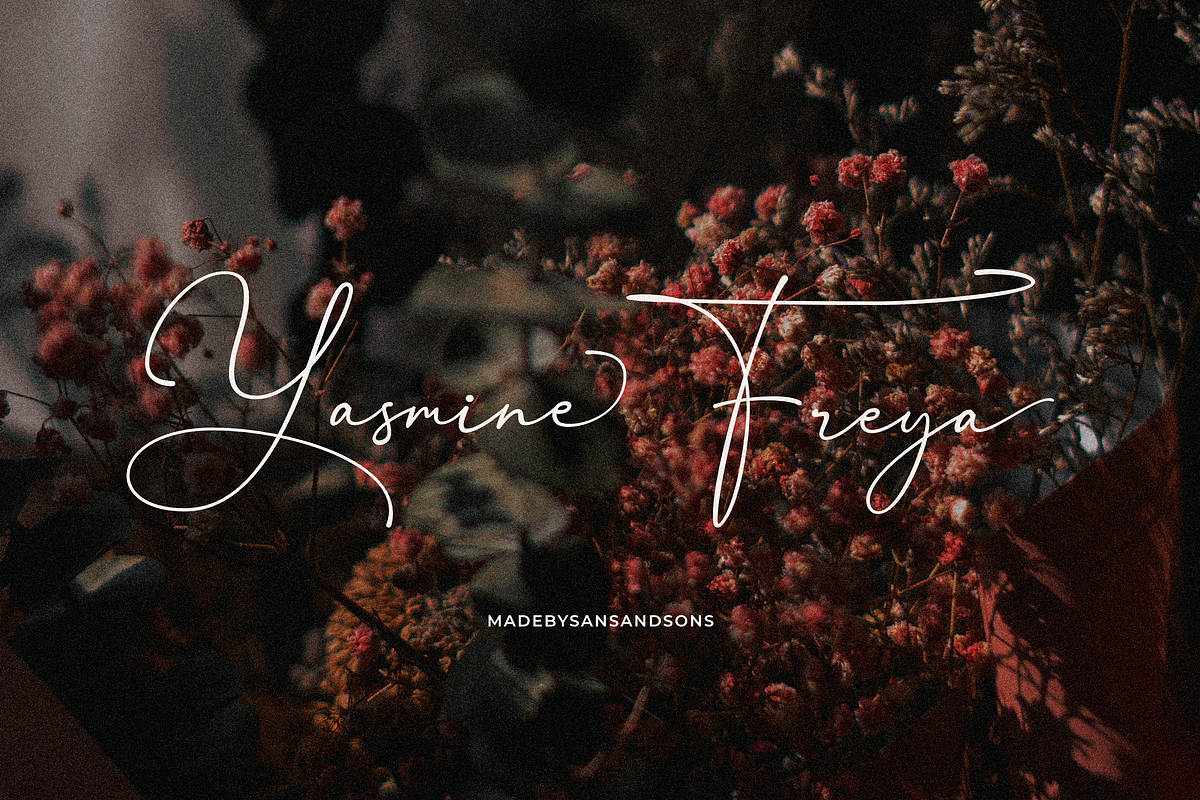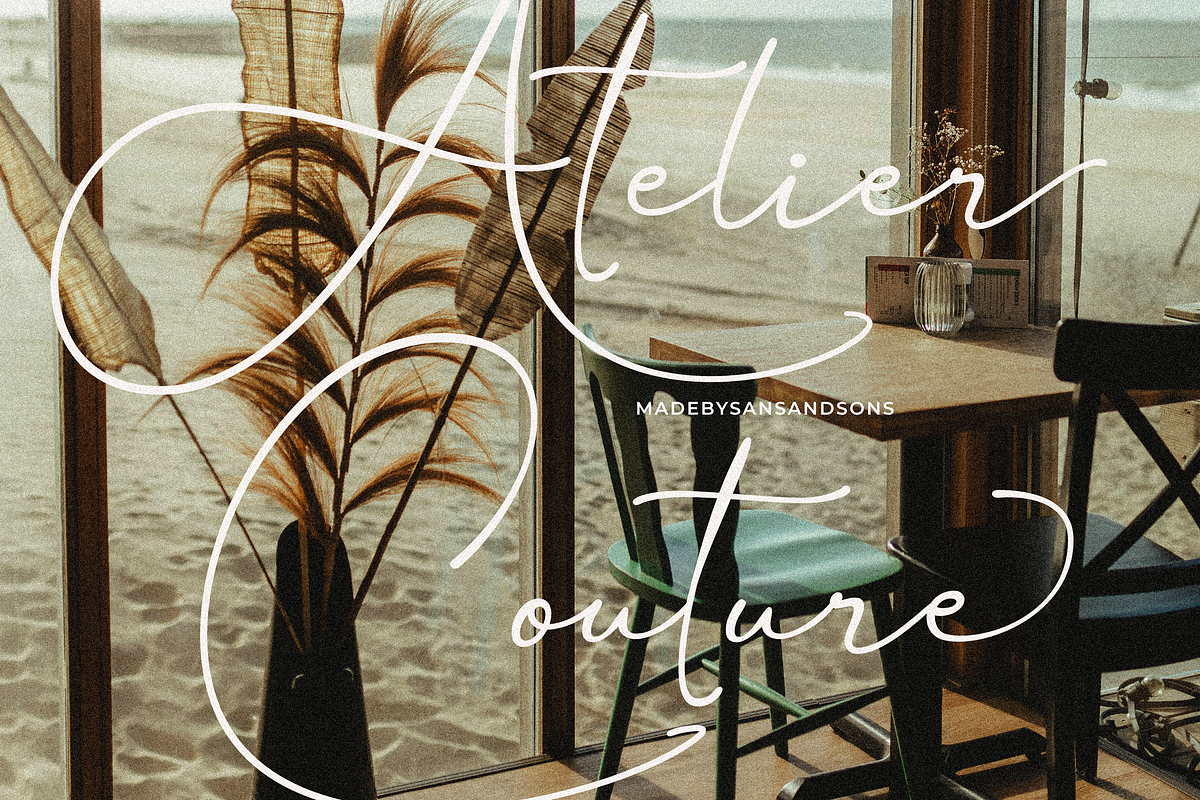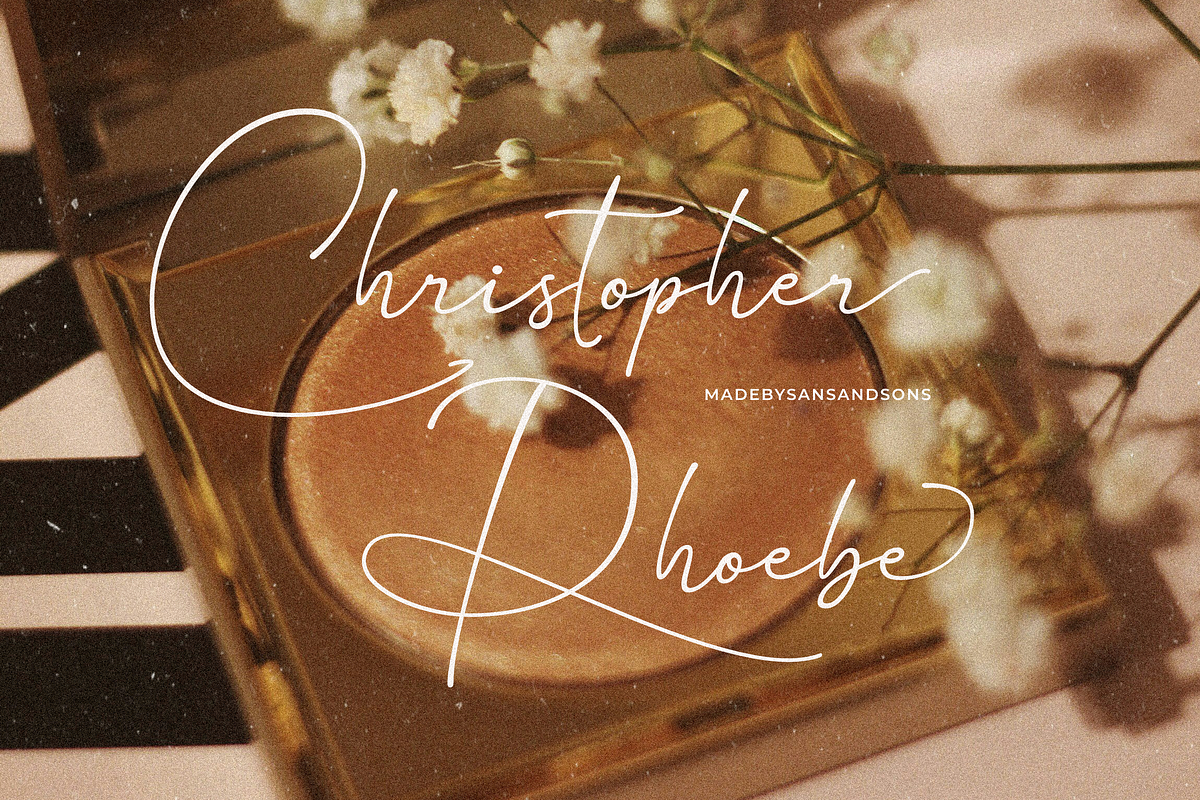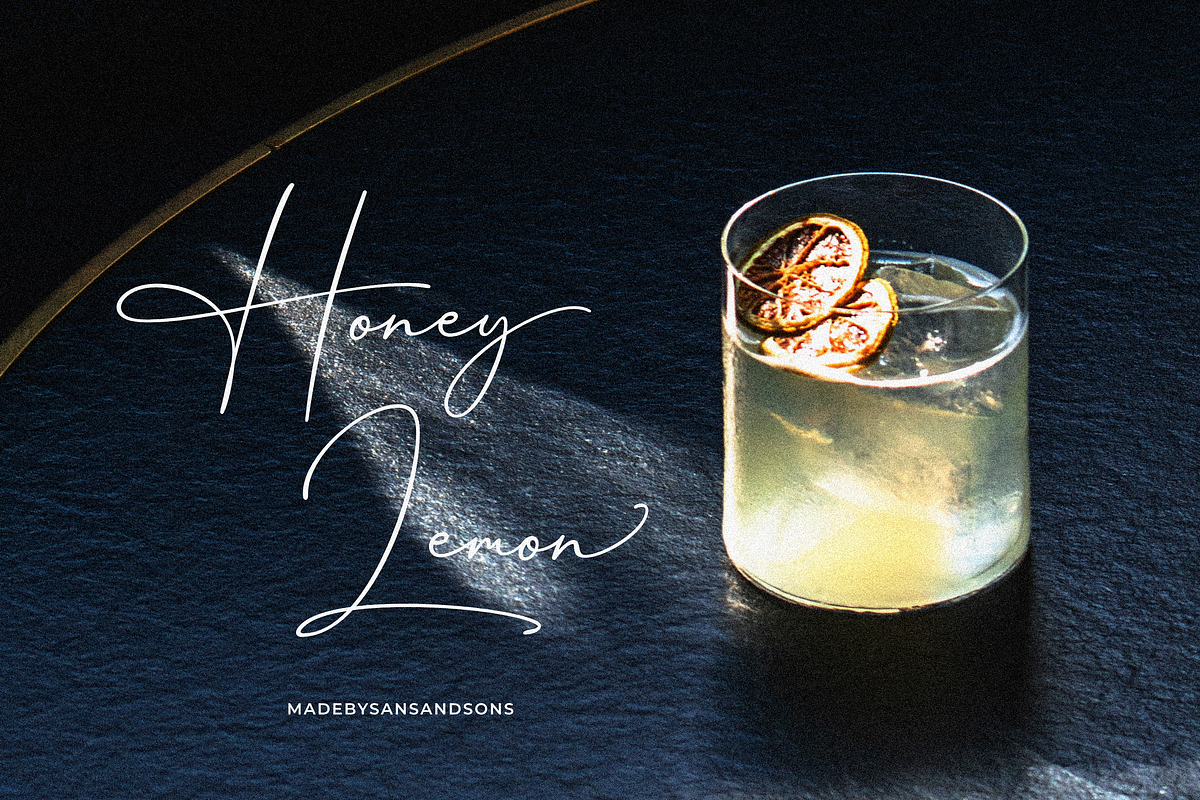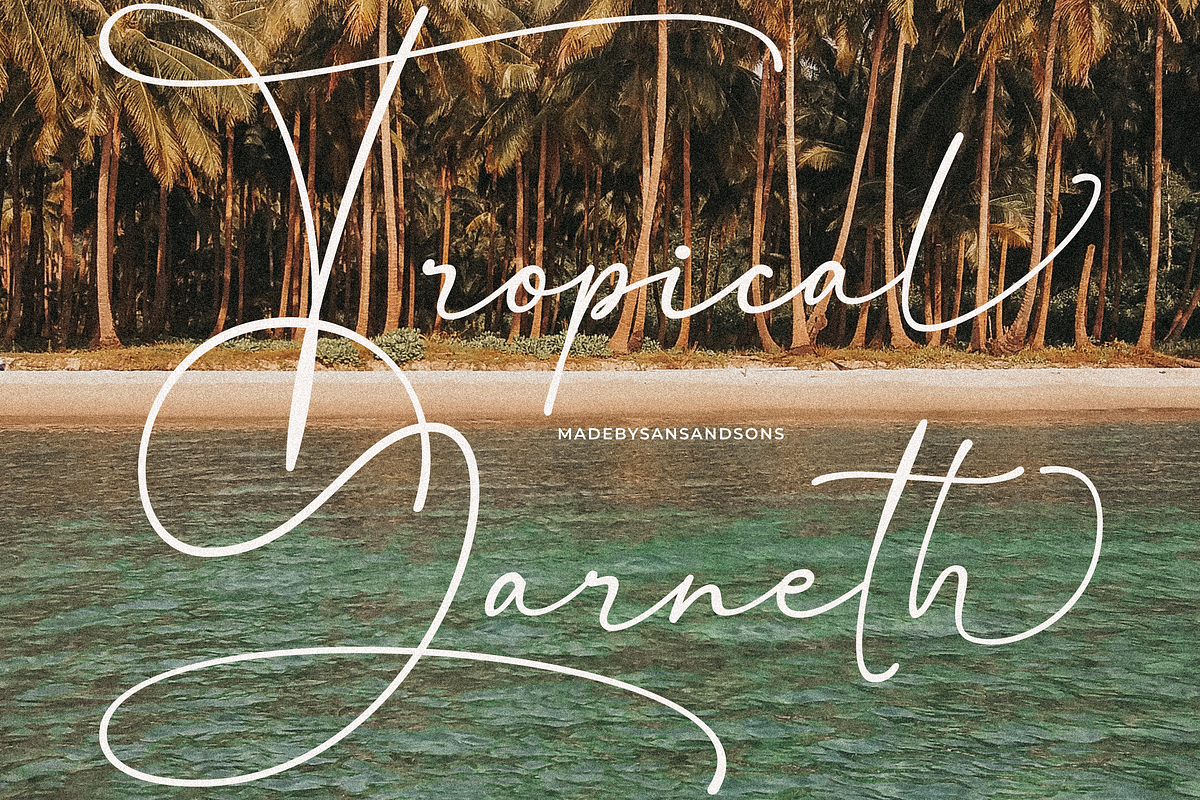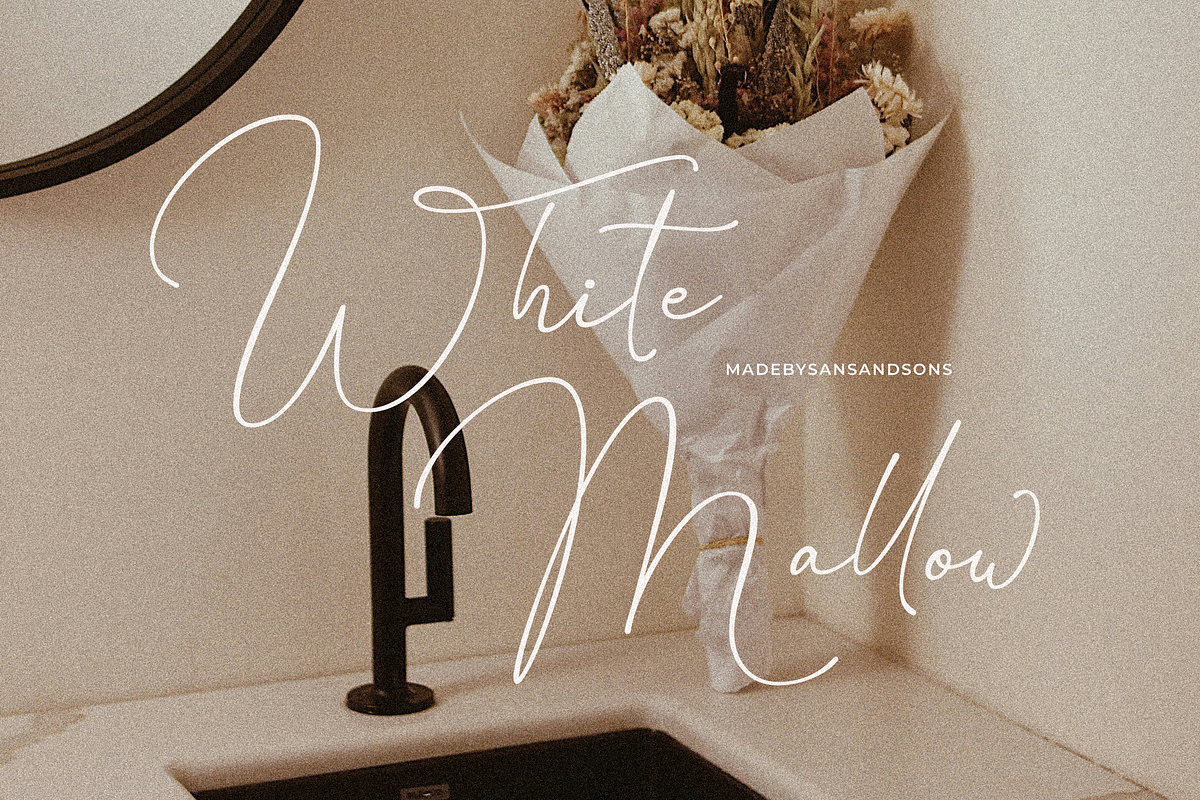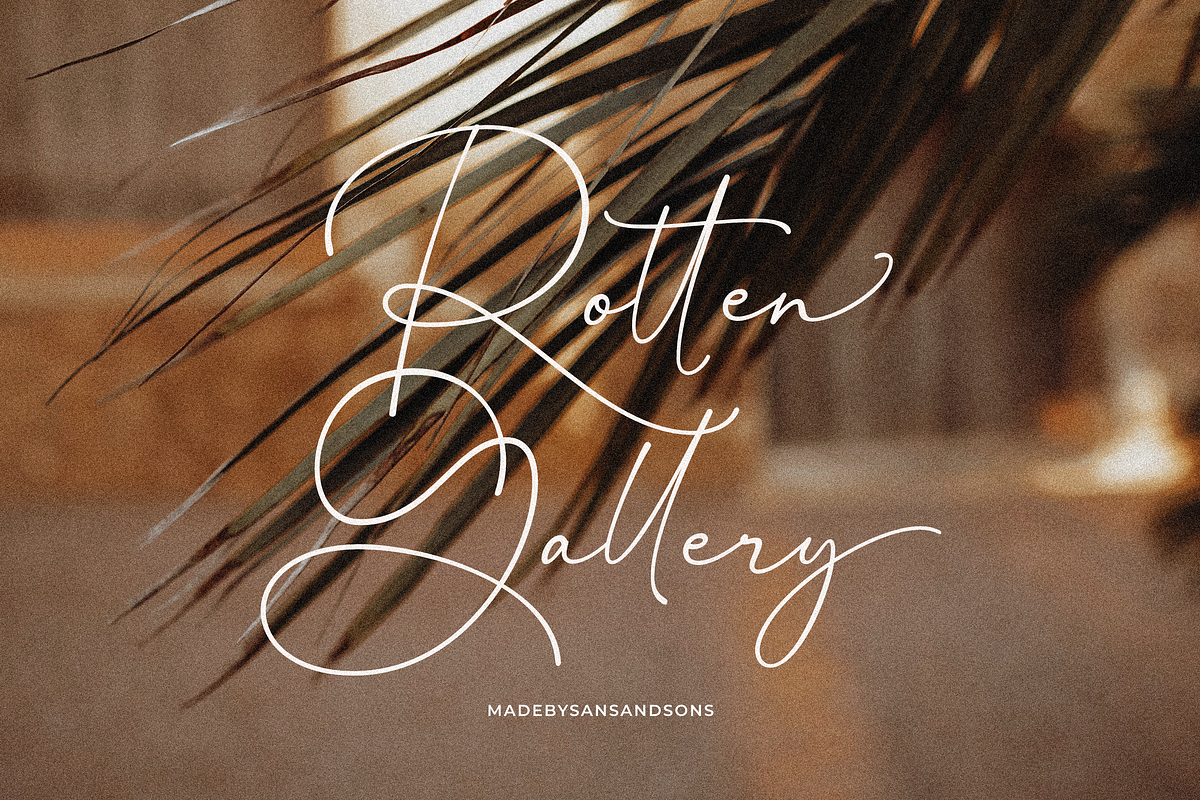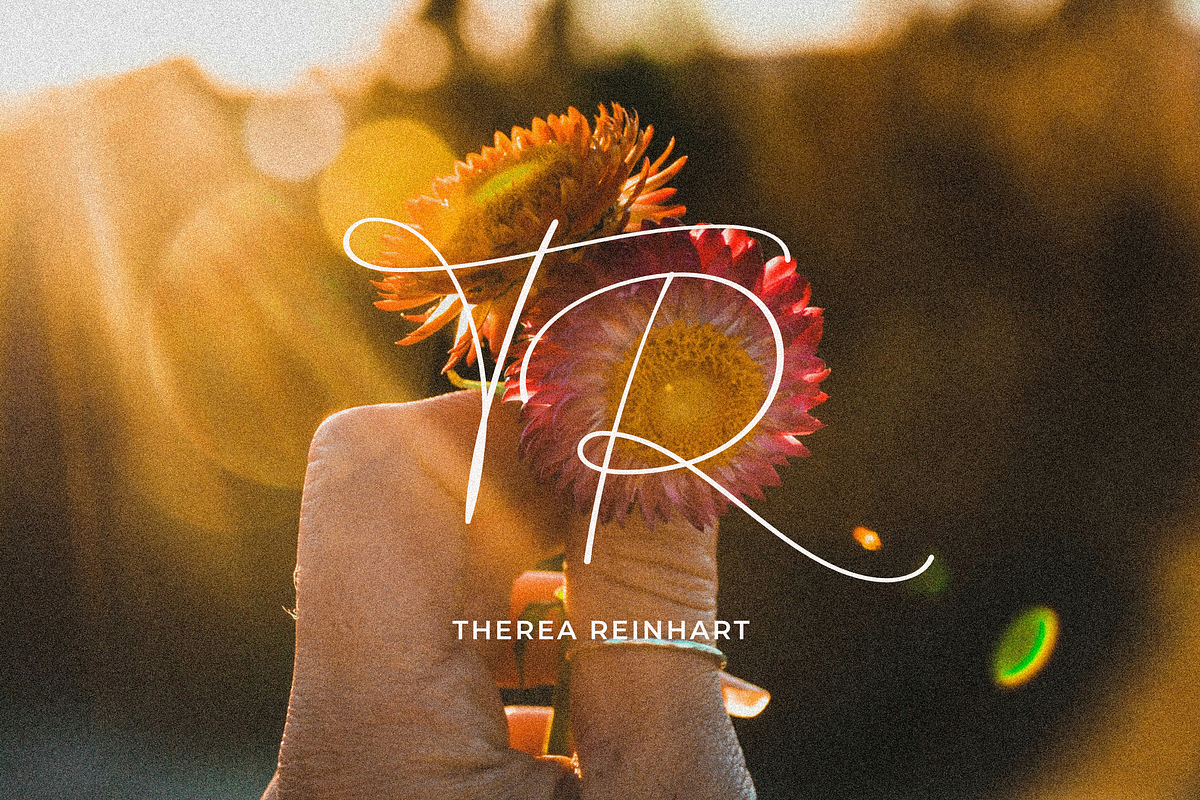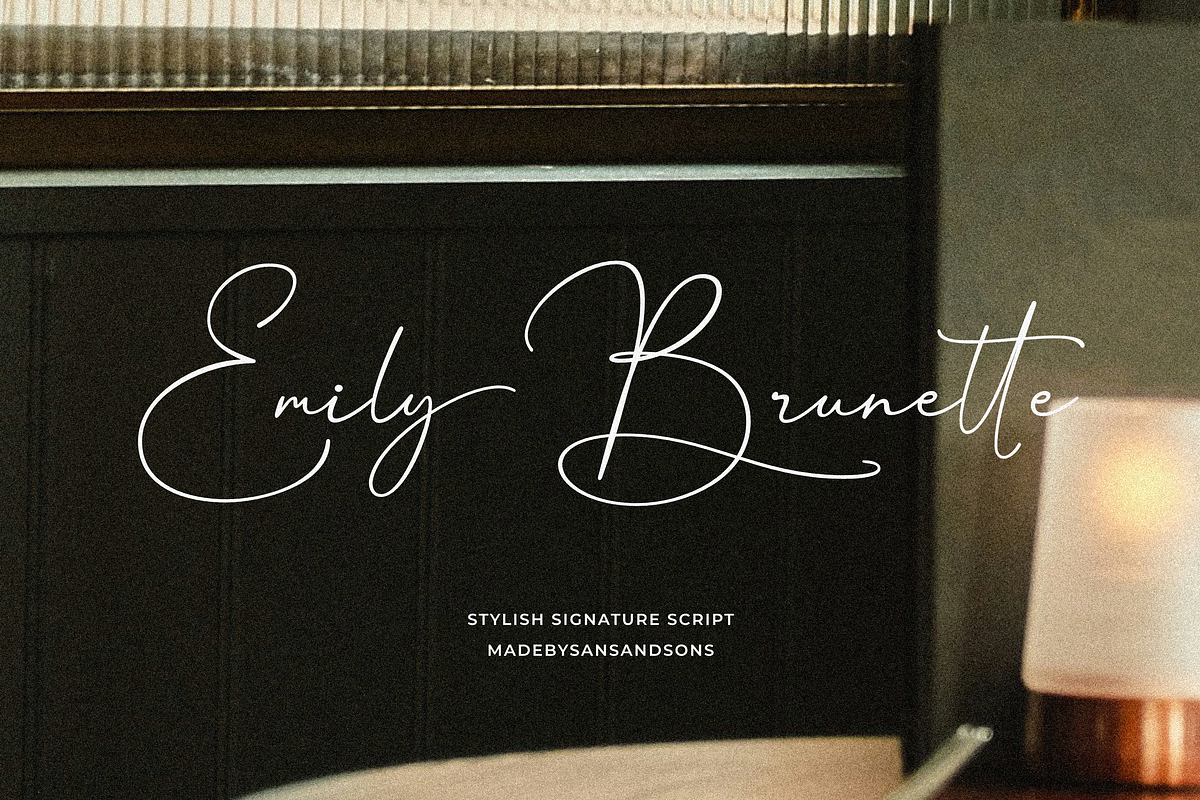
Emily Brunette - Signature Font
Emily Brunette - Elegant Calligraphy Font by Sans & Sons
Emily Brunette includes full set of uppercase and lowercase letters, multilingual symbols, numerals, punctuation, alternates, swash and ligatures. The font has organic calligraphic smooth wet ink texture with Modern Elegant Style this is great for branding, logos, invitation, masterheads and more.